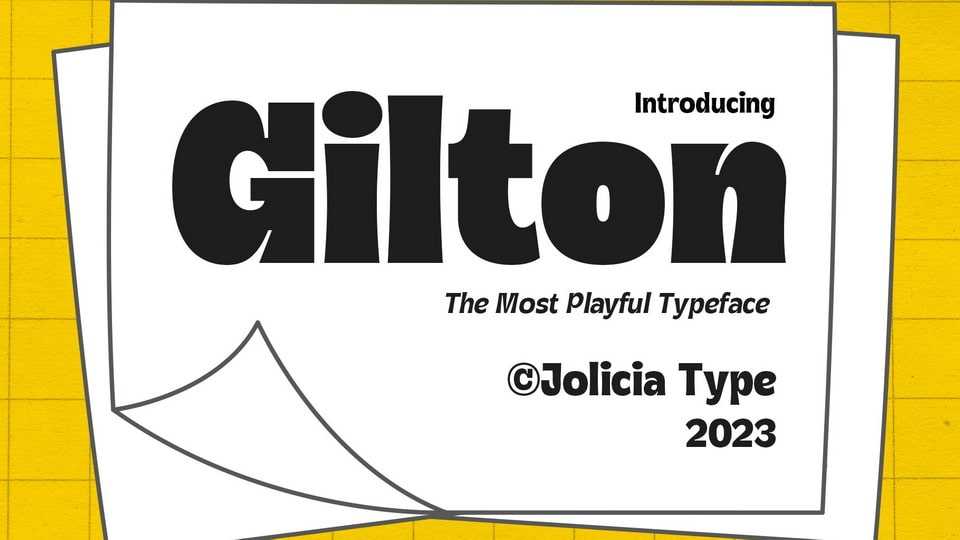
Download Gilton font, a display typeface inspired by retro playful style of writing with a unique shape in every corner. Gilton font is suitable for any design projects such as poster, headline, magazine, logo, apparel design, etc.